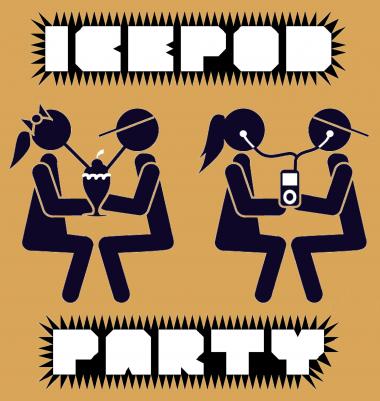
Realta 1
by four
hedgehog, porcupine, echidna, sea urchin? Combine this font with Elmoyenique's font Realta 2 to achieve a connected effect, after an idea by thalamic (see comments). I have followed the terminology that Cmunk used for his font dry heat to name the different sets of letters: Realta 1 Upper Case: isolates Lower Case: initials Realta 2 Upper Case: medials Lower Case: finals
Echidna power: activated!!! 10/10.
It's bright!
Supernova? Whatever, this is excellent. 10/10
This is very striking. I spent a long time staring at each letter. There is a lot of detail in how the radiation? extends out of the glyphs.
While looking at them, it occurred to me that you could do three additional versions of this where Left version will have no energy escaping on the right side and have just a straight edge; the Right version will have a straight edge on the left side; and the Middle version will have straight edges on left and right sides. Then you can mix the four fonts together to do something like:
Oh yeah, what thalamic said!
Energetic and skillful.
I'm with thalamic; it's a lot of job, I know, but could be great at the end. I can make one of the three new fonts, if you want (with your ©, of course).
thalamic’s thought is on the money. ’twould be most amazing to combine the three proposed versions into a single opentype file programmed to automatically substituted the proper initial and terminal forms...
Thanks for your comments once again, fellow fontstructors. Thanks thalamic and will.i.ૐ, for taking the time to look at the font in detail and for sharing your wonderful suggestions and thanks elmoyenique, for your offer to help out with the work involved. For the moment, the whole idea can probably be created in two fontstructions, using both upper and lower cases as the four different versions. I'll think a bit more about it and will send you message over the weekend, elmo.
Ouch! But really cool.